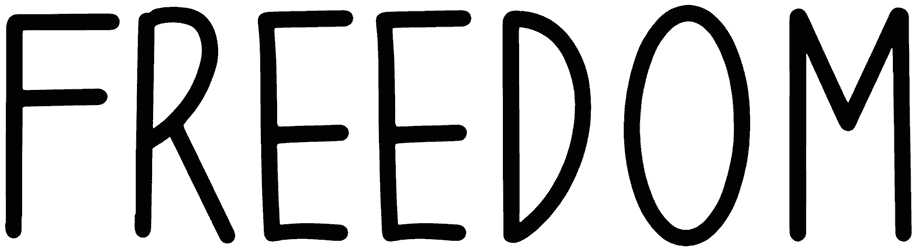
Freedom Font
Success comes to those graphic artists who never delay in selecting a marvelous script font the such as Freedom, which has a simple and sturdy style.
Aside from not supporting lowercase letters, this bullet journal font can be your savior in the middle of designing animation posters, application user interfaces, web page templates, blog posts, or digital banners. It has the real potential to boost a sense of simplicity, joy, jauntiness, and momentum in your artwork.